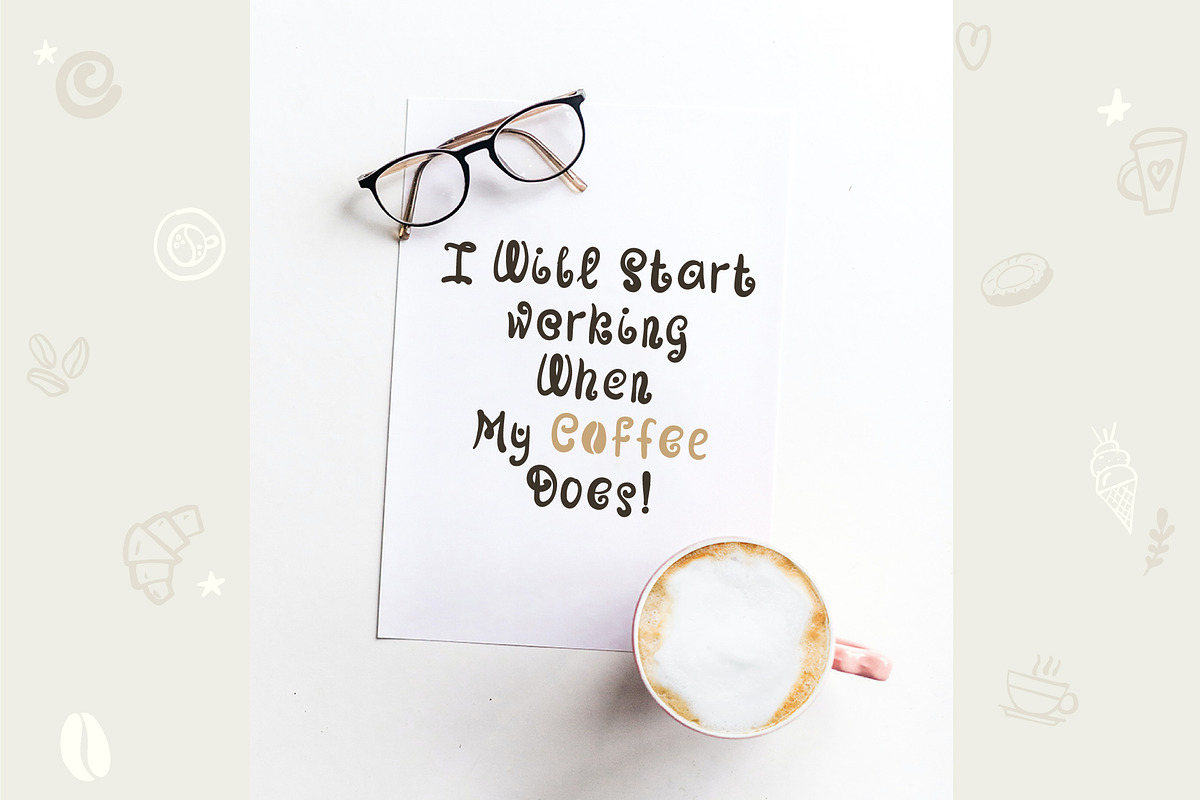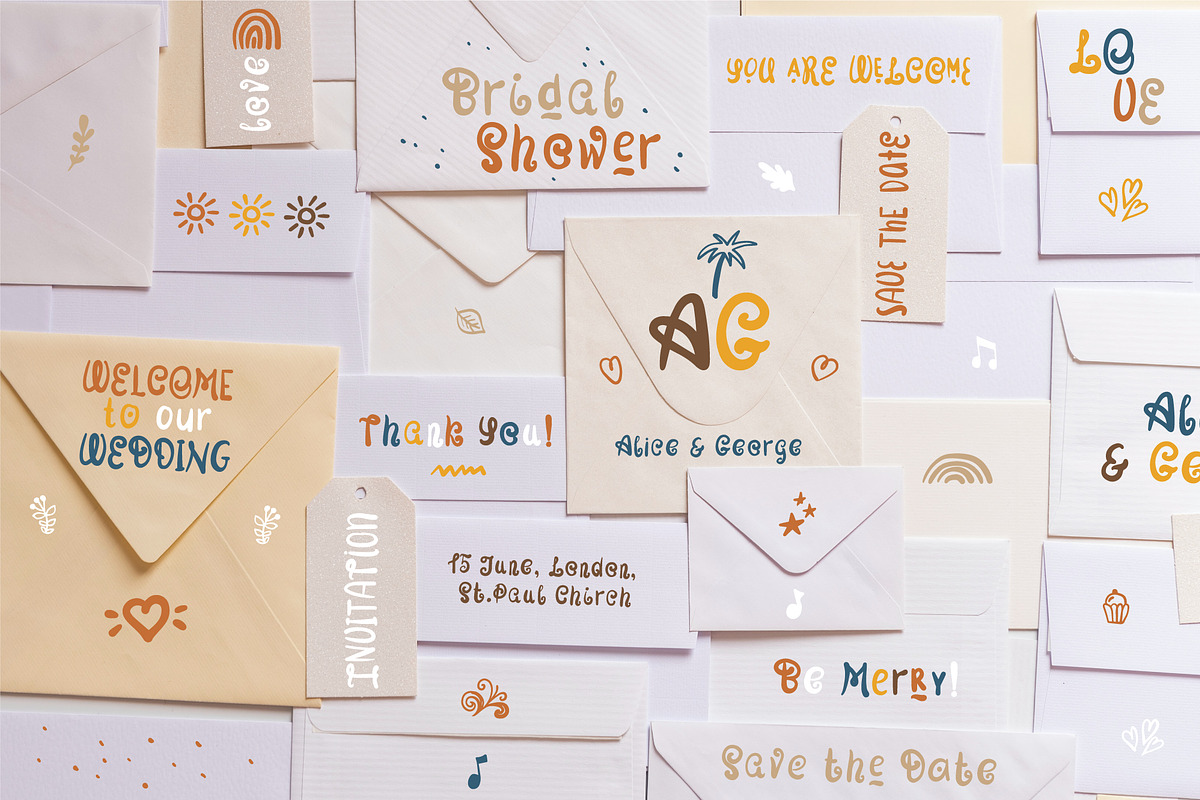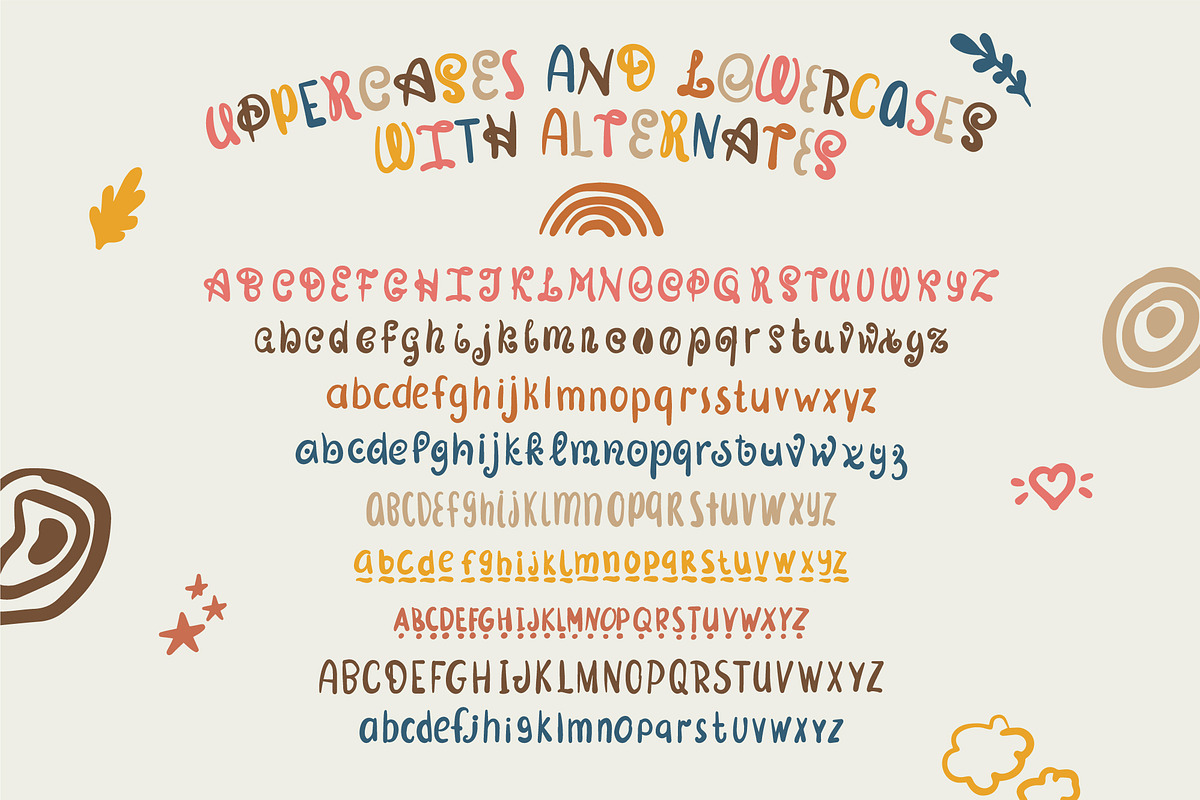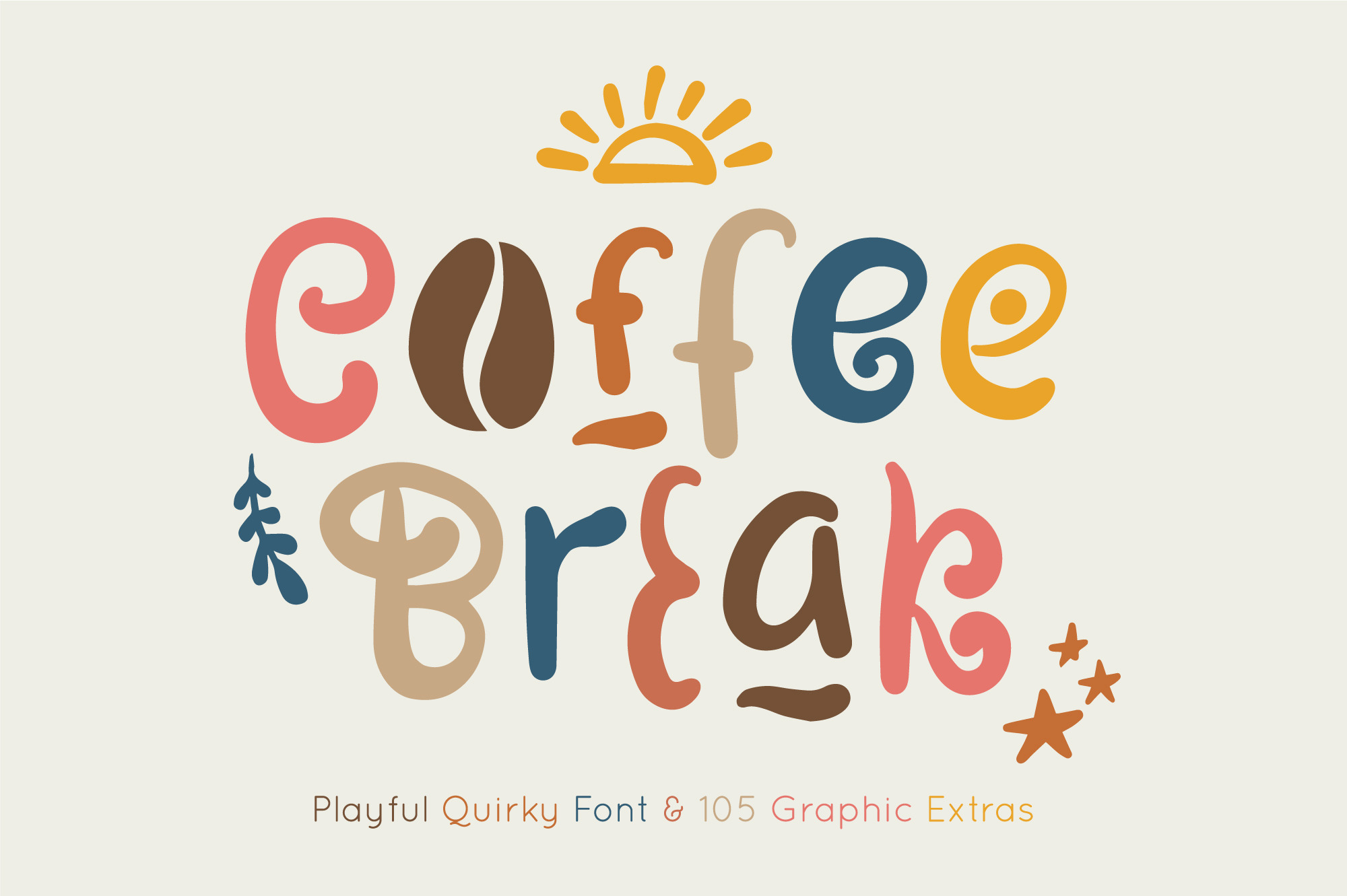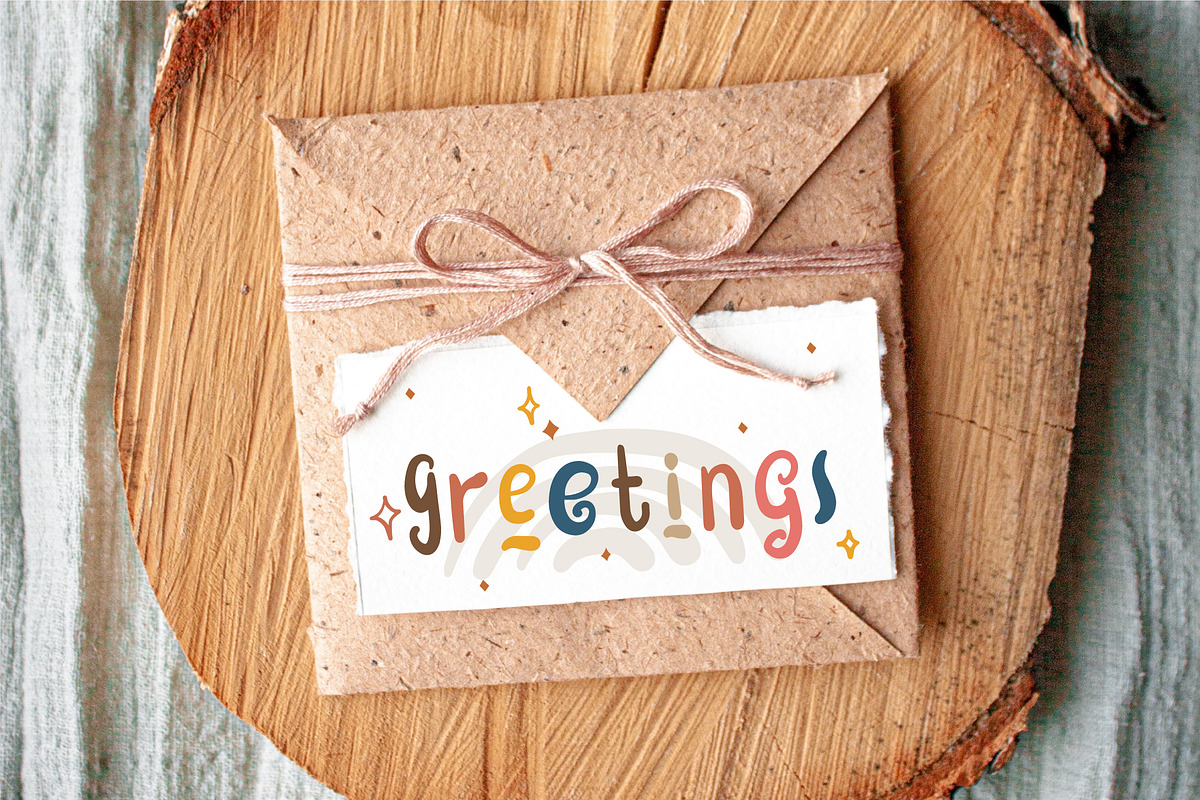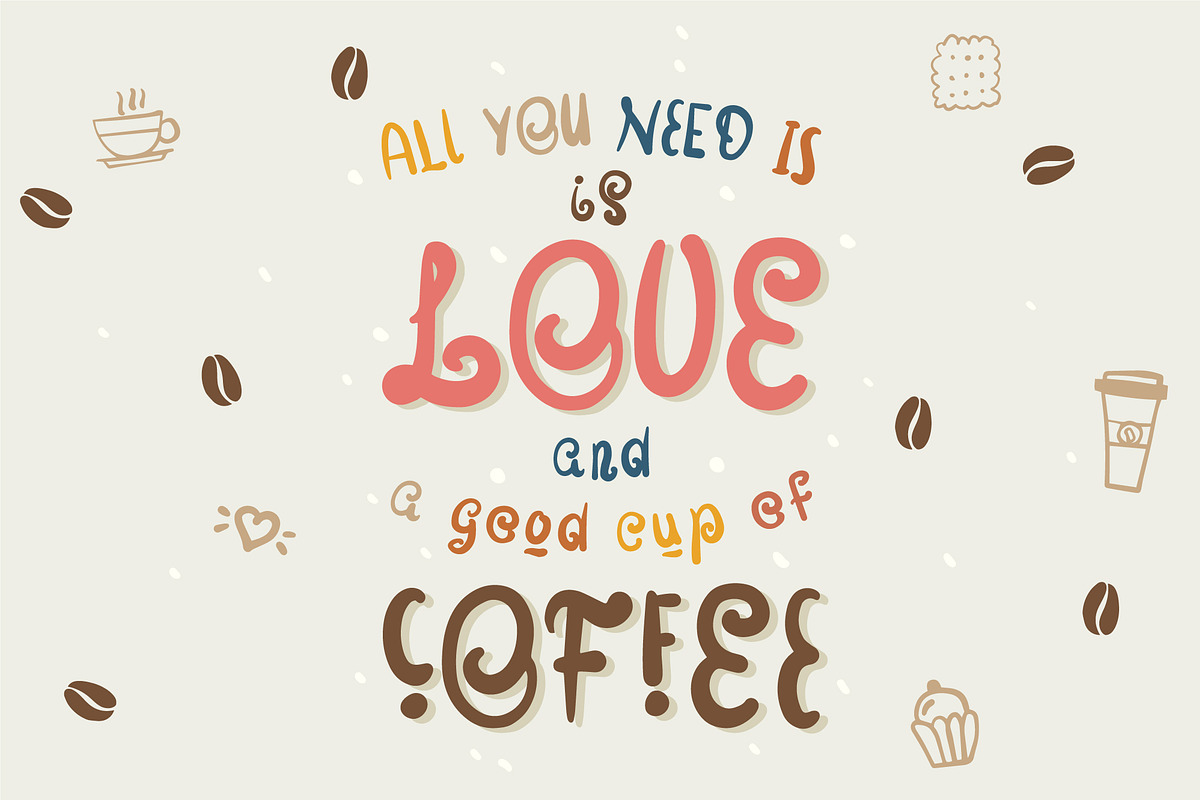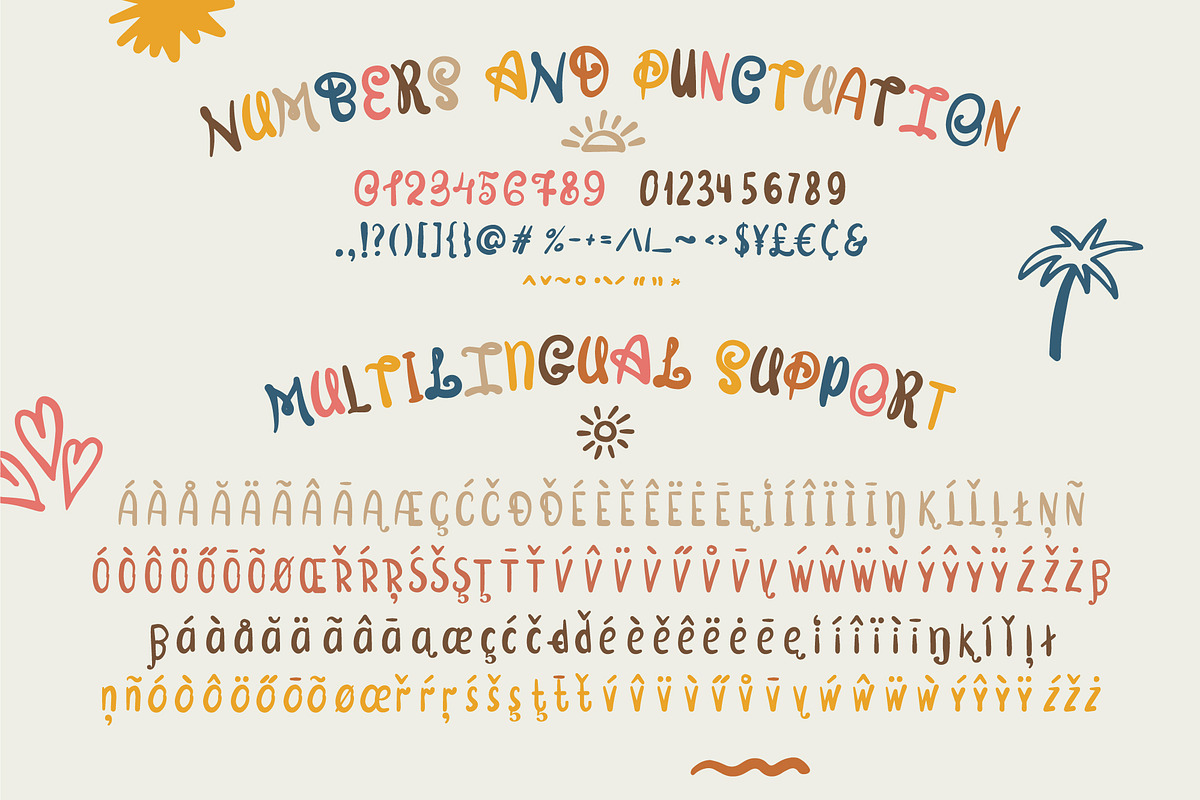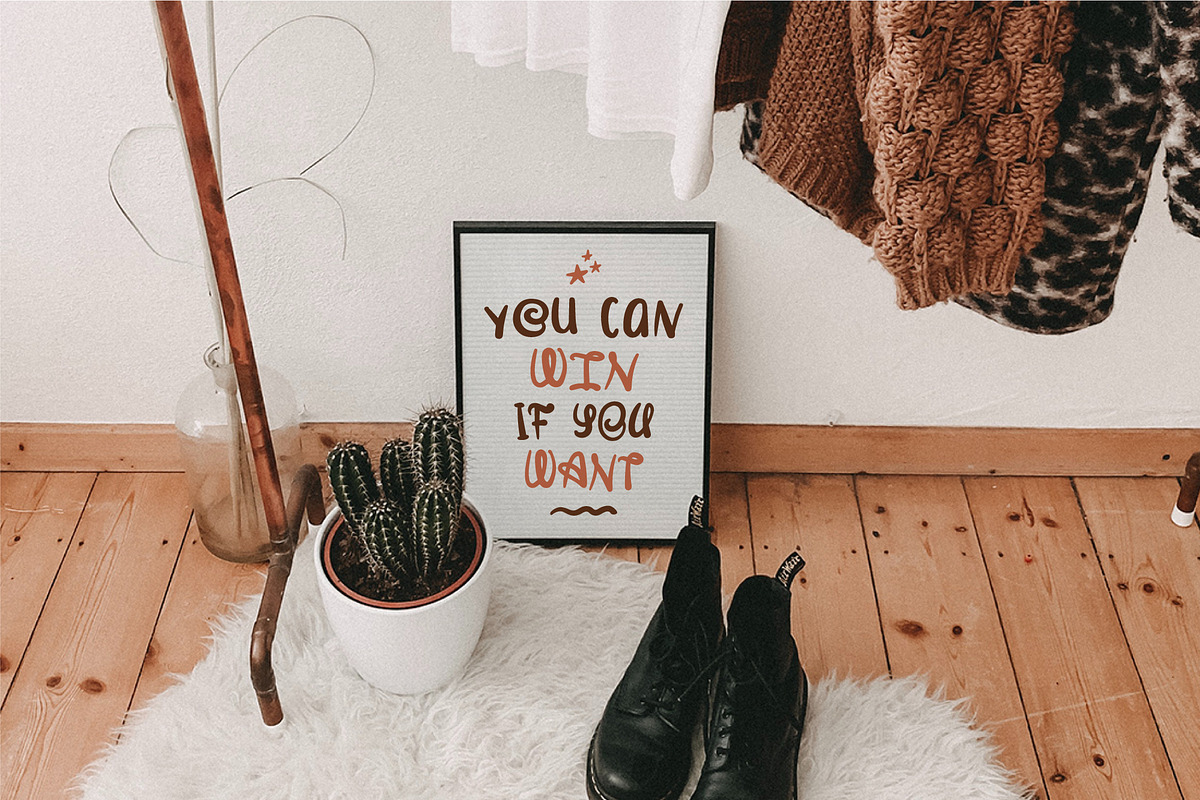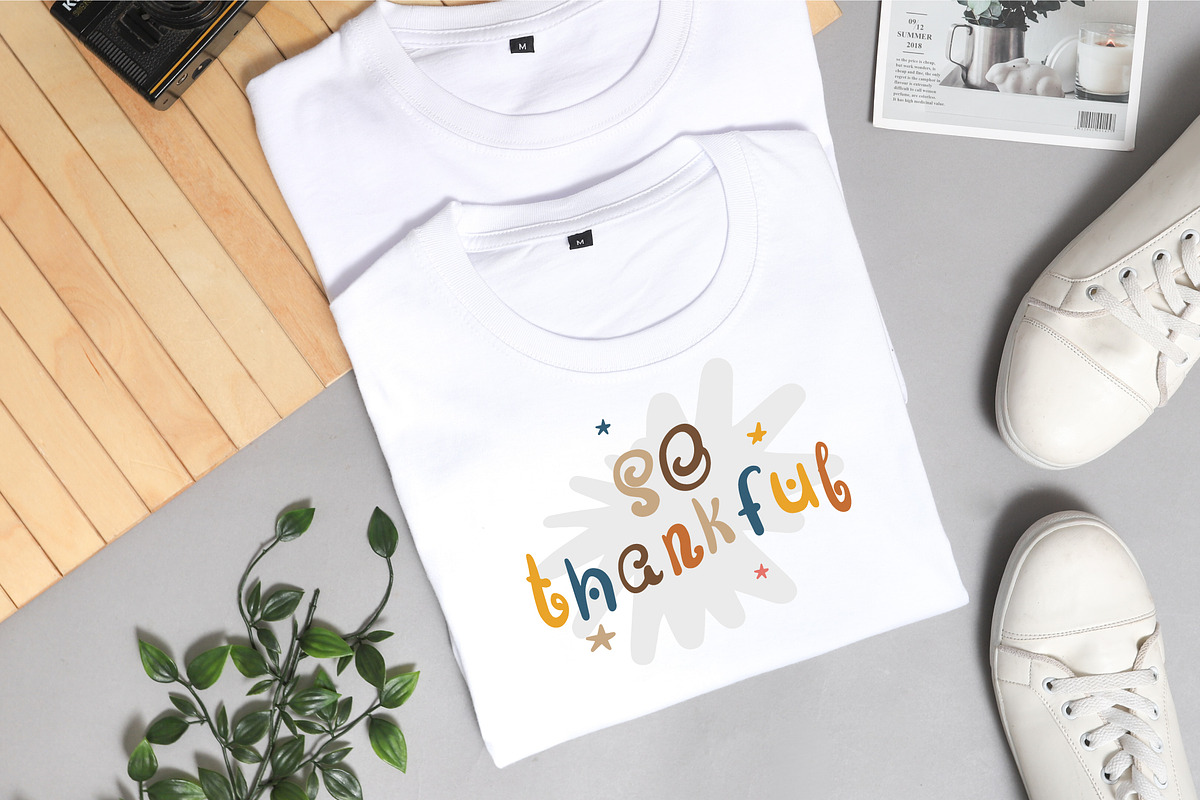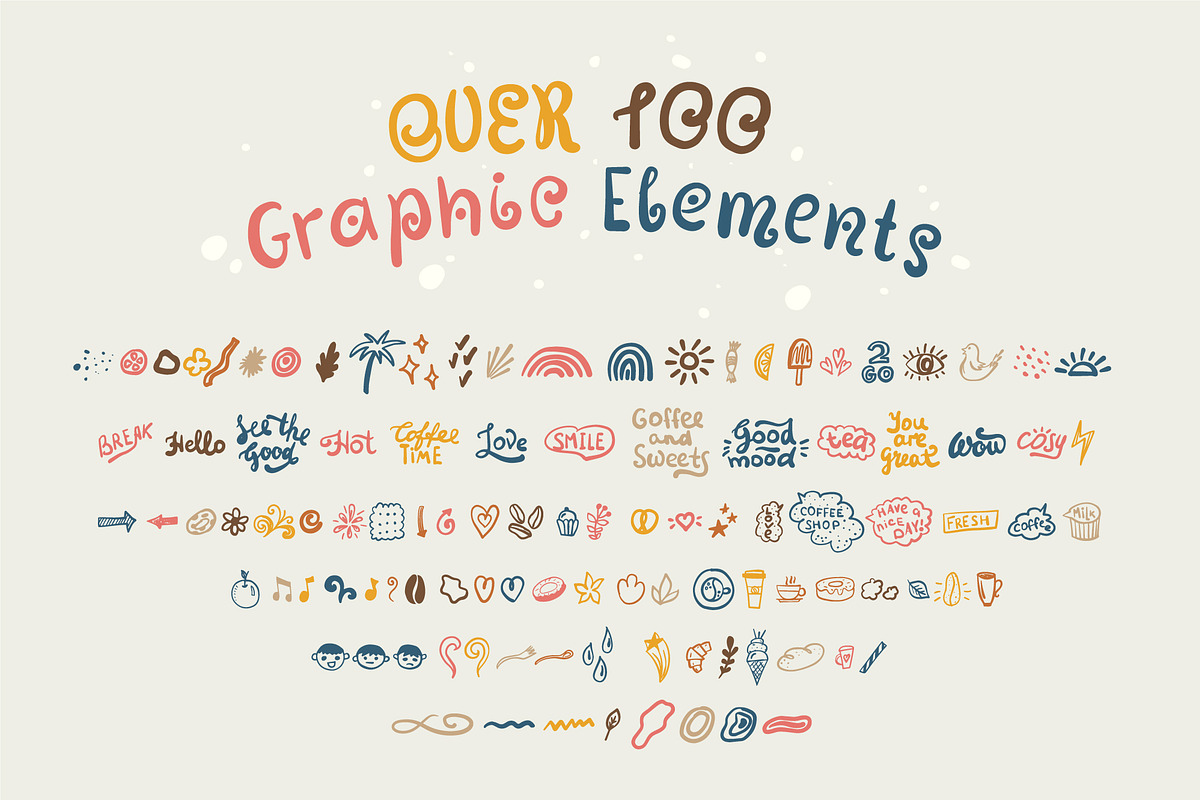
Coffee Break | Playful Font Family
"COFFEE BREAK" is a new fun and "playful font family" which puts a smile on your projects and will inspire you to create something fun and memorable. It is perfect for headings, flyer, greeting cards, product packaging, book cover, printed quotes, logotype, apparel design, album covers, etc.
COFFEE BREAK will help you to create special and touching typographical design for scandinavian or childish projects, for every day or the happiest day in life, summer vacations, baby shower, happy birthday cards. It is really universal and modern font. The owner of endless possibilities!
Coffee Break hosts 2 OTF fonts of different weights and styles:
- COFFEE BREAK Regular
- COFFEE BREAK Symbols (vector, Png and Psd files)
"COFFEE BREAK font" has uppercase and lowercase letters, alternates, hand-drawn extras, numbers & basic punctuation, multilingual support (French, German, Italian, Norwegian, Portuguese, Spanish, Swedish, Swiss German).